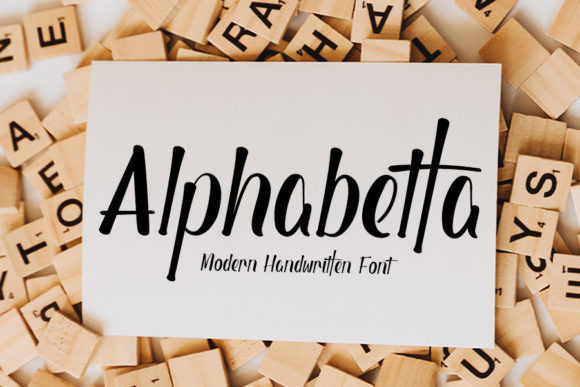
The Quest for the Perfect Font: Discovering Alphabetta
Ah, the eternal struggle of finding the perfect font for a design project. I recall a particularly frustrating moment when I was working on a branding project for a trendy boutique hotel. My client wanted a font that exuded elegance, sophistication, and a touch of playfulness. I scoured the internet, tried out countless fonts, but nothing seemed to fit the bill. That was until I stumbled upon Alphabetta, a stylish and bold handwritten font that instantly captured the essence of the brand.
An Honest Review of Alphabetta
So, what makes Alphabetta so special? Let’s dive into the good stuff! 🤩
• ✨ Stunning calligraphic feel: Alphabetta boasts a timeless classic calligraphy style that’s both elegant and sophisticated.
• ✅ Versatility: This font shines in a wide range of contexts, from branding and advertising to packaging and digital media.
• 💥 Contemporary atmosphere: Alphabetta’s modern twist on traditional calligraphy makes it perfect for designers looking for a fresh take on classic elegance.
Of course, no font is perfect, and Alphabetta has a few minor quirks:
• 🤔 Limited suitability for body text: Due to its bold and decorative nature, Alphabetta is best suited for headlines, titles, and short paragraphs.
• ⚠️ Some glyphs may require manual adjustment: Depending on the context, certain glyphs might need tweaking to ensure optimal spacing and alignment.
The Story Behind Alphabetta
Alphabetta was inspired by the works of renowned calligraphers from the past, with a modern twist. Its creator aimed to craft a font that would evoke the elegance of traditional calligraphy while still feeling fresh and contemporary. The result is a stunning, versatile font that’s perfect for a wide range of design applications.
Is Alphabetta suitable for body text? While Alphabetta is a beautiful font, it’s best suited for headlines, titles, and short paragraphs due to its bold and decorative nature.